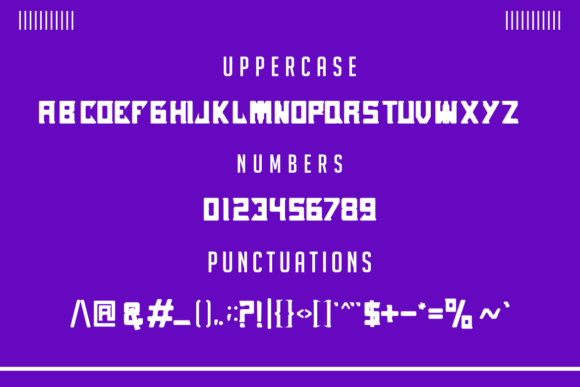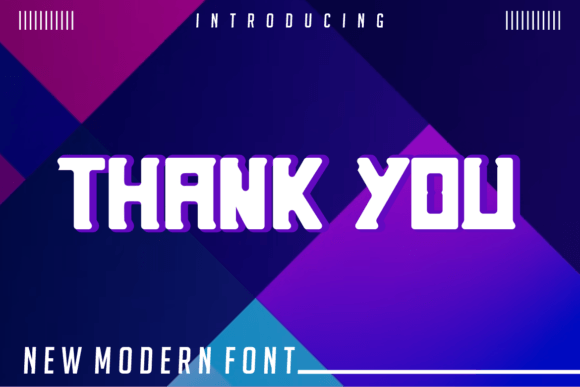
Introduction to Fonsans Font
Have you ever been working on a creative project, and the perfect font just slips right through your fingers? That’s what happened to me last week when I was designing a new campaign for a local business. I wanted something that would stand out, something that would make my design pop. And then I stumbled upon it – the Fonsans Font. With its cool and modern feel, I knew I had found the perfect addition to my design.
As a designer, you know how valuable a good font can be. It can make or break a design, and in this case, the Fonsans Font was the missing piece to my puzzle. Not only is it free to download, but it’s also a high-quality design resource that’s perfect for any creative project.
But what really sets the Fonsans Font apart is its transparent background, making it perfect for designs where you want to add a touch of elegance and sophistication. And with its modern feel, it’s sure to add a touch of style to any design project.
Key Features of Fonsans Font
- High-quality design resource ideal for creative projects, offering a unique and modern aesthetic.
- Transparent background option allows for seamless integration with any design, providing a clean and minimalist look.
- Designed with high resolution in mind, making it suitable for use in a variety of creative projects, from digital to print media.
- Part of a comprehensive font family, offering a range of styles and weights to enhance design versatility.
- Can be easily customized to fit the specific needs of a design project, making it a valuable resource for designers.
Honest Review: Fonsans Font
I recently had the chance to work with the Fonsans Font, and I must say it’s been a game-changer for my design projects. ✨ This free download is a fantastic addition to any designer’s toolkit, offering a high-quality sans-serif font that’s perfect for creating a clean and modern aesthetic.
One of the things that really stood out to me was the font’s versatility. It works beautifully for both body text and headings, making it a great choice for creative projects that require a consistent visual identity. Plus, the transparent background option allows for seamless integration into any design, giving me more creative freedom than ever before.
- High-quality sans-serif design
- Perfect for body text and headings
Overall, I’m thoroughly impressed with the Fonsans Font. While it may have some limitations, its strengths far outweigh its weaknesses. I highly recommend adding it to your design resource arsenal – it’s a fantastic choice for any creative project.
Fonsans Font is commonly used in creative projects such as logo design, branding, and typography-based art. Its high-quality design and transparent background make it perfect for creating visually appealing designs. With its free download option, you can access the font and use it in your next creative project.
To get the most out of Fonsans Font, use it in conjunction with other high-quality design resources such as graphics and images. Experiment with different font sizes and styles to create a unique and visually appealing design. With its high-quality design and free download option, Fonsans Font is a great addition to any designer’s toolkit.
Does Fonsans Font support transparent background?
Yes, Fonsans Font supports transparent background, making it ideal for creative projects that require a high-quality font with a transparent background. You can use the font with a transparent background in applications that support this feature, such as Adobe Illustrator and Photoshop.